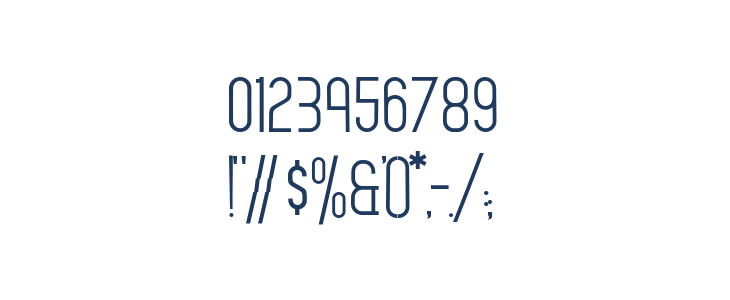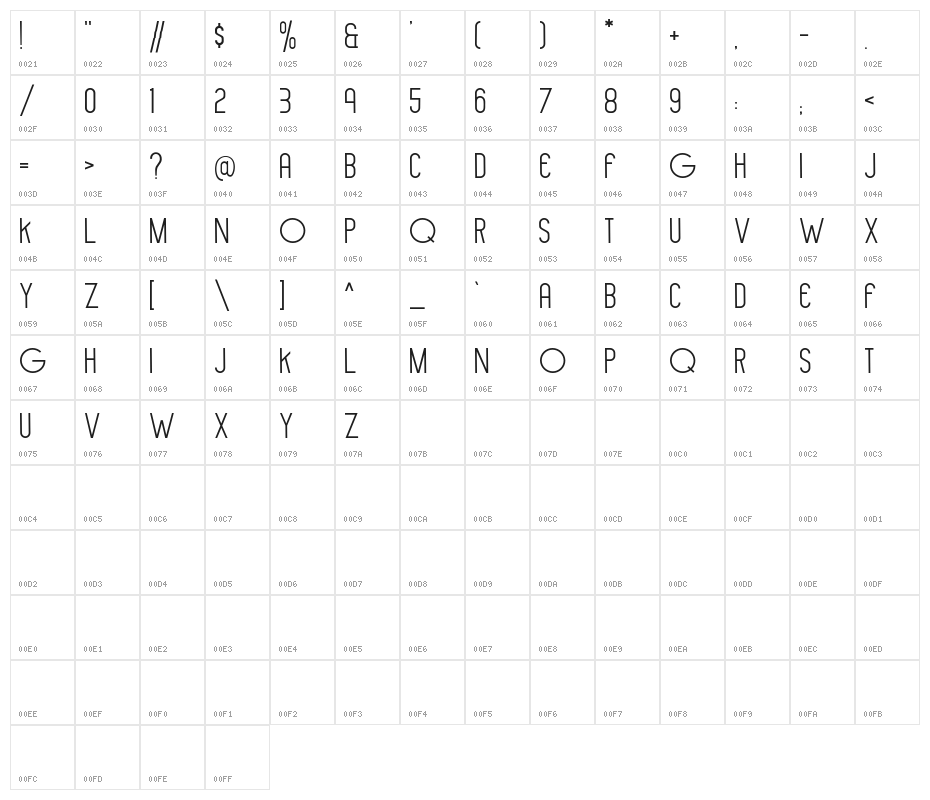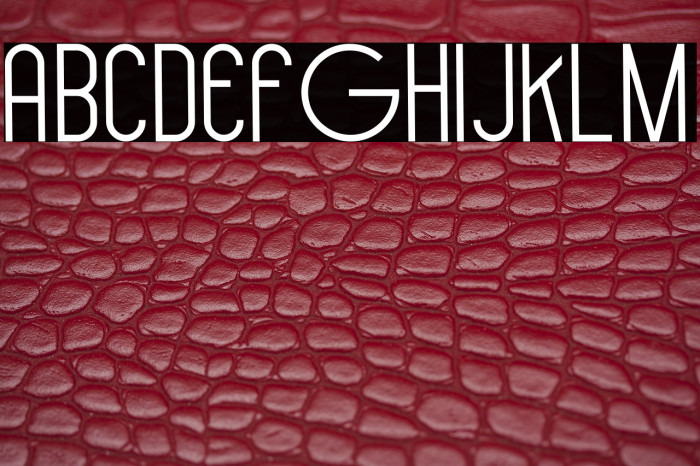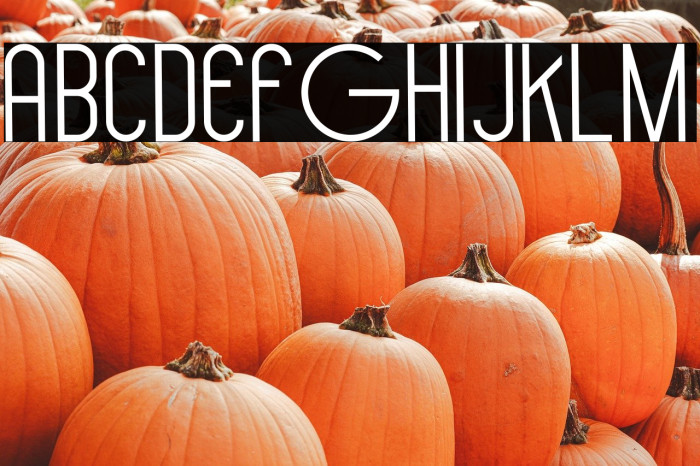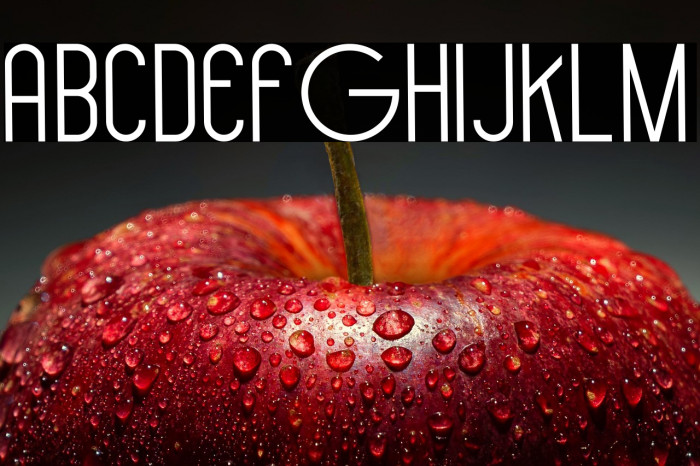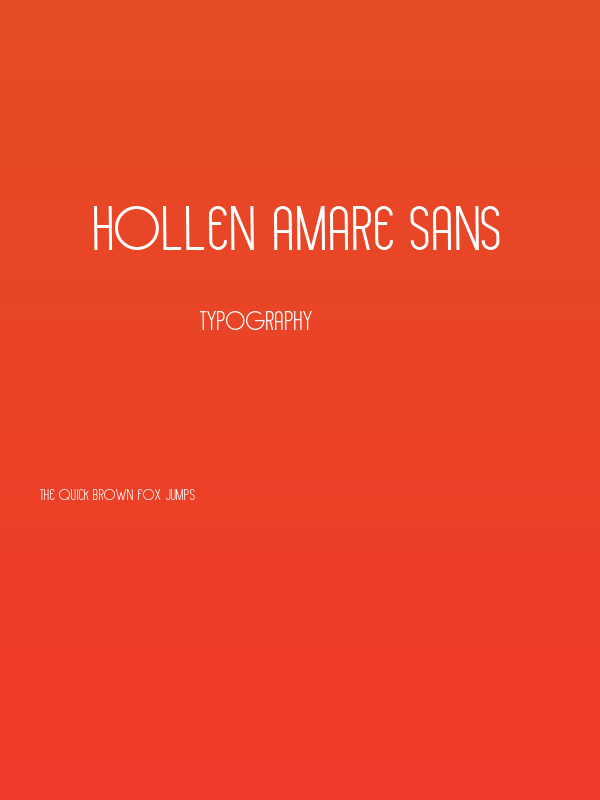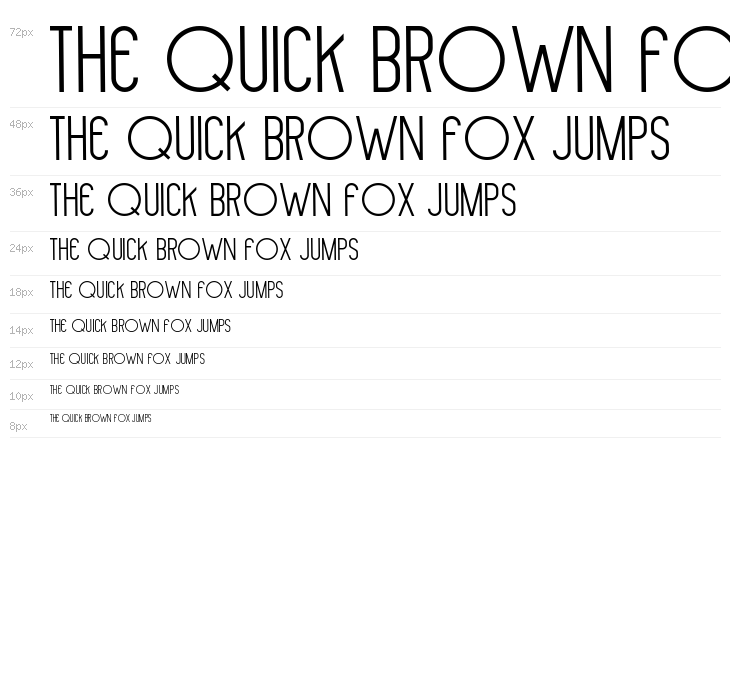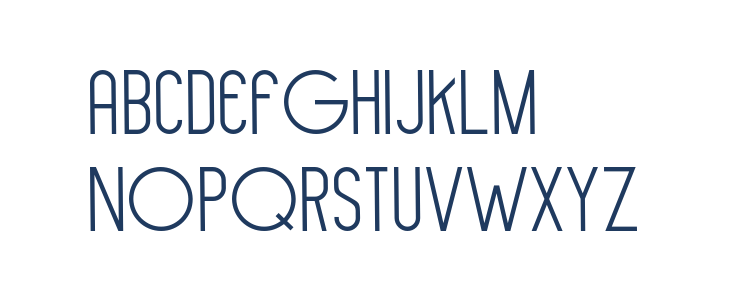
Hollen amare sans Font
Hollen amare sans Description
This font features a clean and modern sans-serif style with tall, narrow letterforms. The characters are evenly spaced, providing a balanced and harmonious appearance. The uppercase letters are slightly elongated, giving a sleek and sophisticated look. The numerals are consistent with the overall design, maintaining the same height and width proportions. Special characters are distinct and well-integrated, ensuring readability and versatility. The font's simplicity and elegance make it suitable for a variety of design applications.
| Proposed Projects | Ideal for branding, editorial design, advertising, and web design projects. |